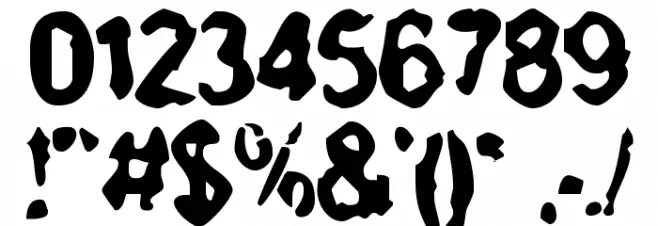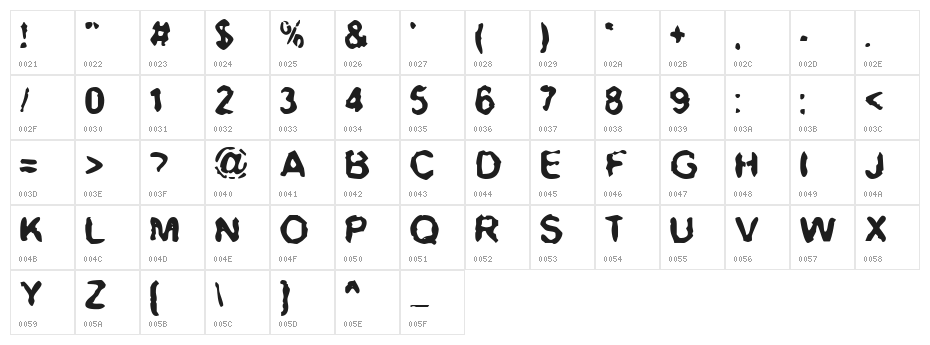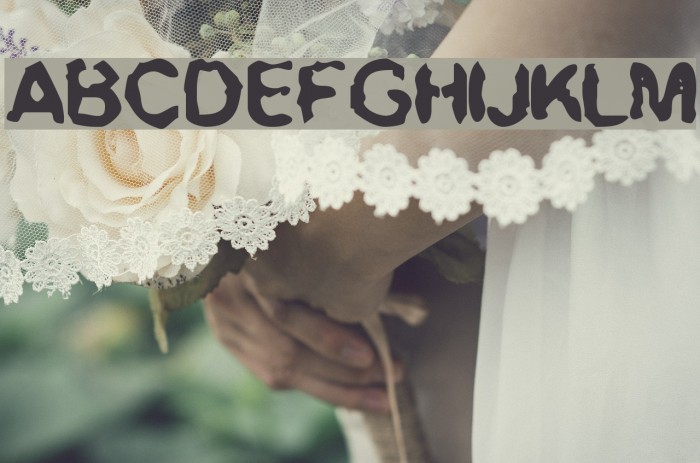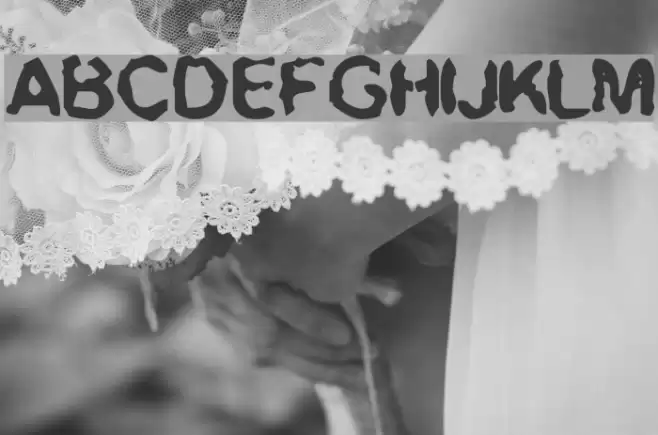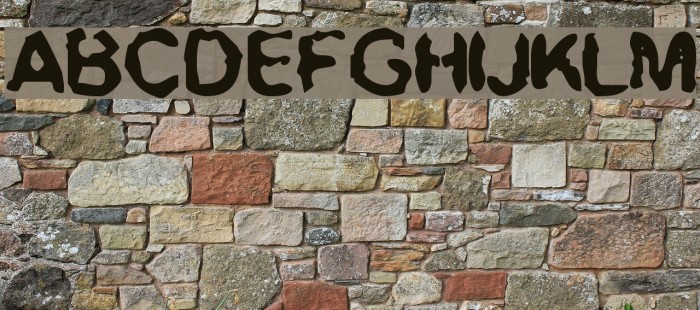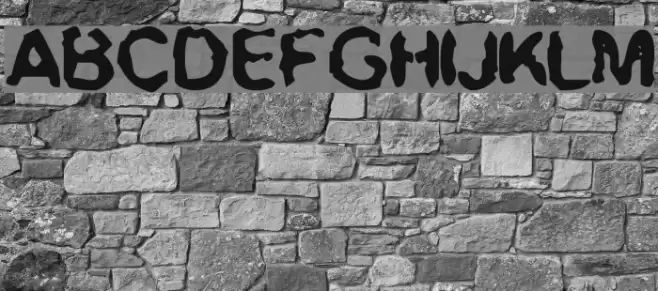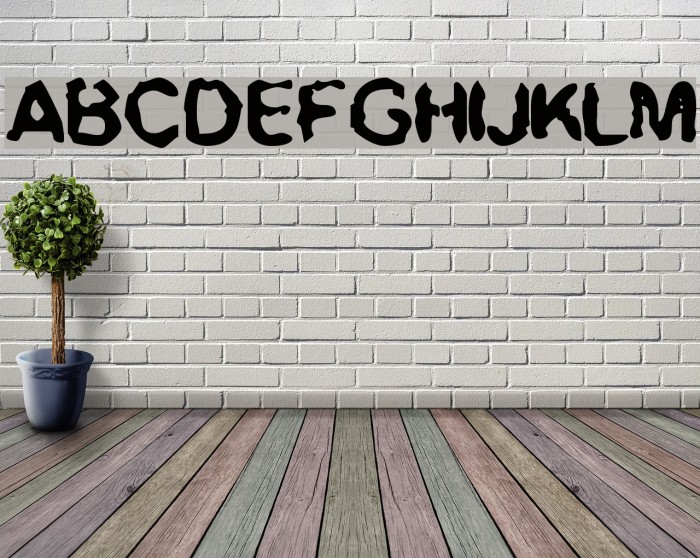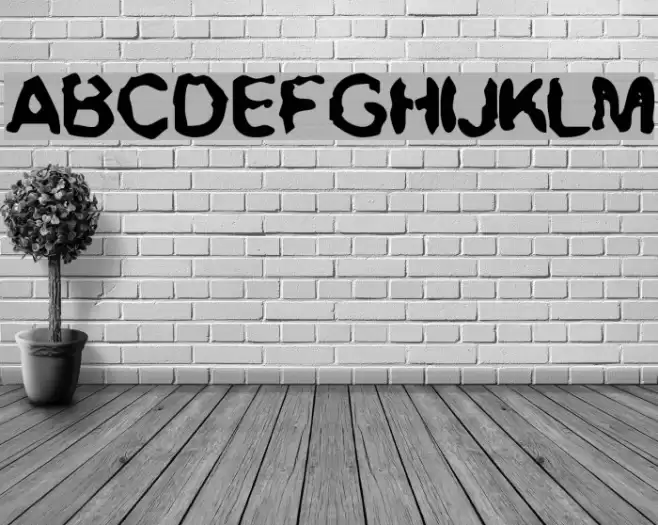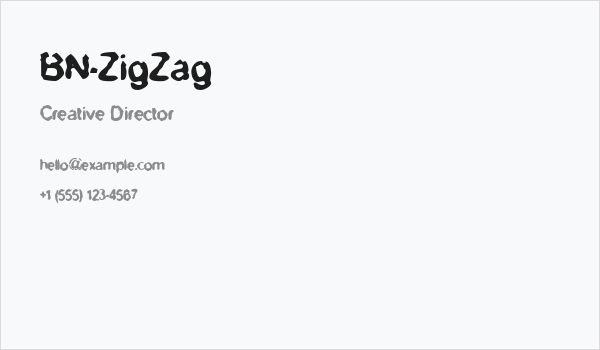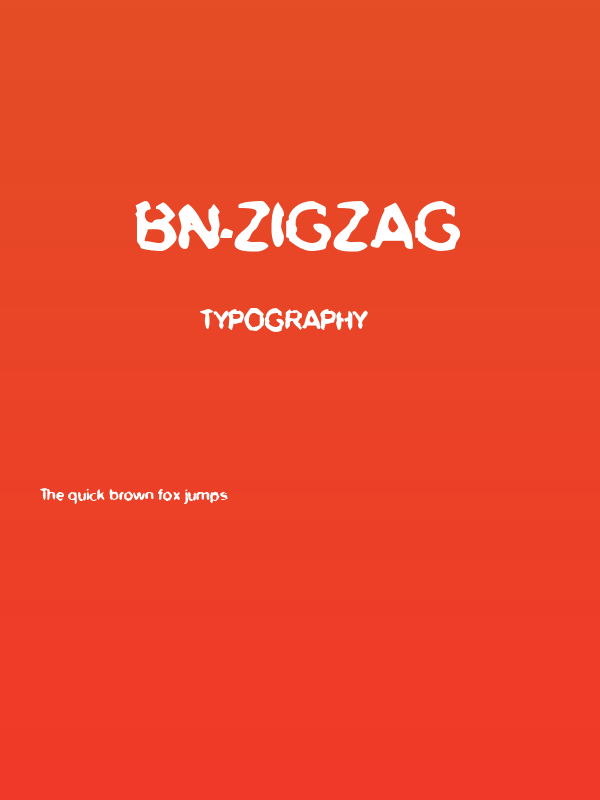
BN-ZigZag Font
BN-ZigZag Description
This font features a bold and playful design with a zigzag pattern that gives it a unique, dynamic appearance. The characters are thick and have an irregular, hand-drawn quality, making them stand out with a sense of movement and energy. The uppercase and lowercase letters maintain a consistent style, with each character exhibiting a slightly jagged edge that adds to the whimsical feel. The numbers and special characters follow the same design principles, ensuring a cohesive look across all elements. This font is ideal for projects that require a fun and eye-catching typeface.
| Proposed Projects | Perfect for children's books, playful branding, posters, and creative design projects. |